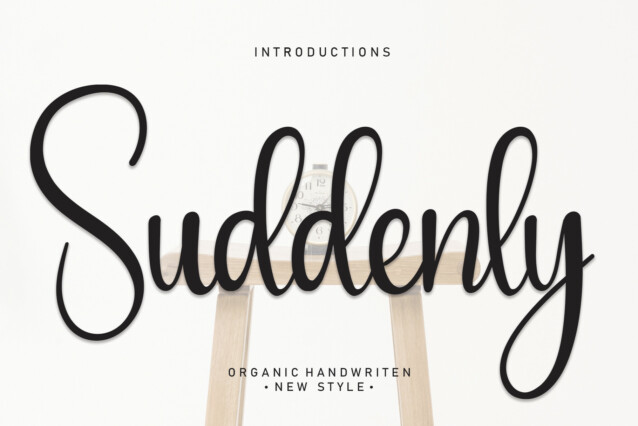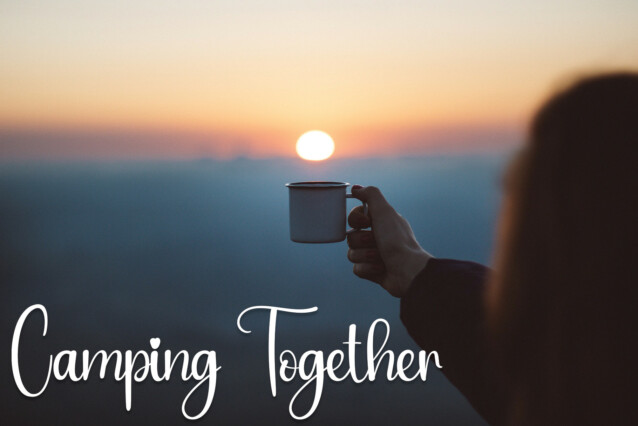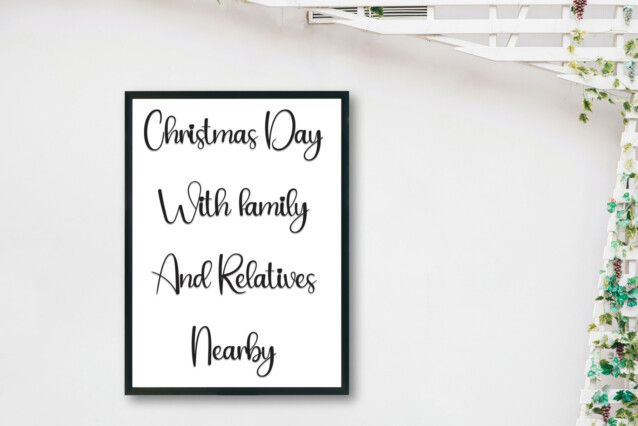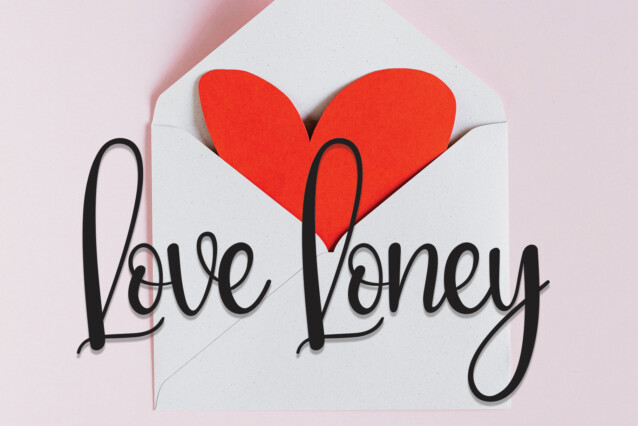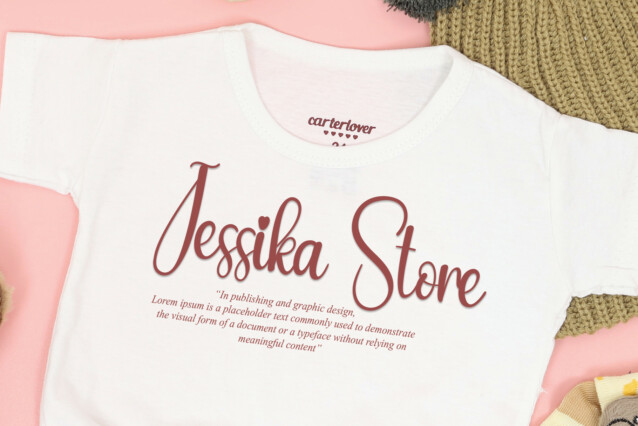
Suddenly Script Font
Suddenly Script Font feels equally charming and elegant. It looks stunning on wedding invitations, thank you cards, quotes, greeting cards, logos, business cards, and every other design which needs a handwritten touch.